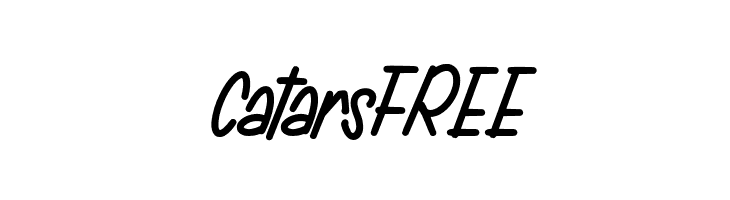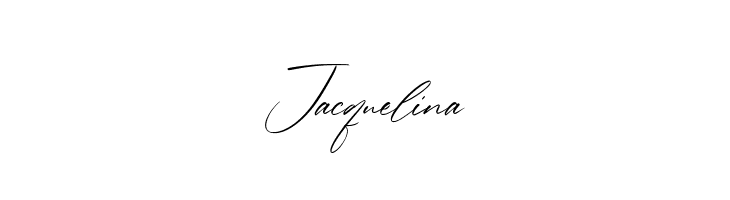
A graceful and flowing script font with elegant, connected characters.
A bold, vintage-style font with elegant curves and strong presence.
A bold, angular font with a futuristic and edgy design.
A lively and elegant script font with smooth, flowing strokes.
A modern, futuristic font with sleek, curved characters.
A dynamic and elegant script font with flowing, cursive letterforms and high contrast.
A bold, italicized font with a modern and decorative style, featuring rounded, flowing characters.
A whimsical, hand-drawn font with playful swirls and curls.
A bold, geometric font with sharp, angular edges and a modern industrial feel.
A playful, bold font with rounded, bubbly characters perfect for fun designs.